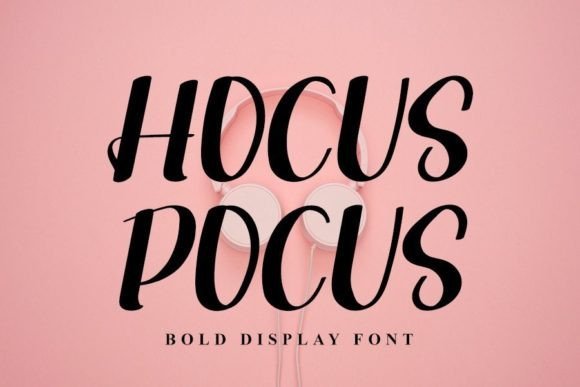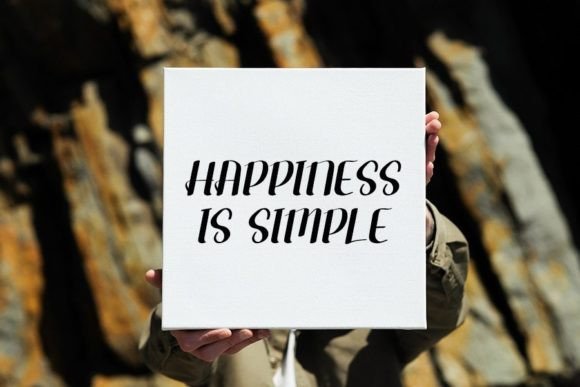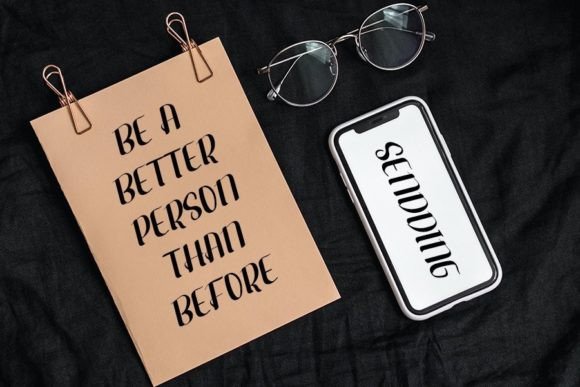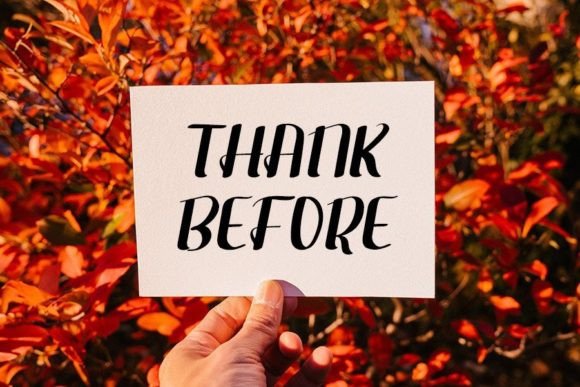
Get Ready to Cast a Spell with the Hocus Pocus Font
Do you ever find yourself rummaging through your design files, searching for that perfect font to bring your project to life? You know, that magical touch that sets your work apart from the rest? For me, that moment usually comes when I stumble upon a font that speaks to my creative soul. And, trust me, the Hocus Pocus Font is one of those special finds.
This elegant handwritten font is a treasure trove of possibilities, perfect for designers looking to add a touch of whimsy and sophistication to their work. With its distinct and timeless style, the Hocus Pocus Font is a valuable addition to any designer’s toolkit. Whether you’re working on a project that requires a touch of magic or just a dash of personality, this font is sure to cast a spell that will leave your audience enchanted.
Hocus Pocus Font Key Features
- Font Family: A unique, custom-designed font with a magical and whimsical feel.
- Unique Characteristics: The font features a distinctive, hand-drawn feel with intricate details and flourishes, adding to its magical charm.
Hocus Pocus Font Review
I was excited to dive into the world of magical typography with the Hocus Pocus Font. As a designer, I always look for unique and captivating fonts to elevate my designs. Let’s see how this font fares.
- The Hocus Pocus Font has a whimsical, mystical vibe that’s perfect for Halloween-themed projects or anything that needs a touch of magic.
- The font is highly customizable, allowing you to adjust the size, color, and even add special effects like glowing or sparkles.
- The font’s irregularities and imperfections give it a hand-drawn feel that’s both charming and authentic.
- The font’s readability can be a concern, especially at smaller sizes. The irregularities that make it charming can also make it difficult to read.
Overall, the Hocus Pocus Font is a fun and creative addition to any designer’s toolkit. While it may have its limitations, its unique charm and customizability make it a great choice for the right project. Just be mindful of its readability and compatibility issues.
Some tips for getting the most out of the Hocus Pocus font include using it sparingly to add emphasis, experimenting with different font sizes and colors, and combining it with other spooky design elements. Common use cases include Halloween-themed designs, horror movie posters, and fantasy book covers.